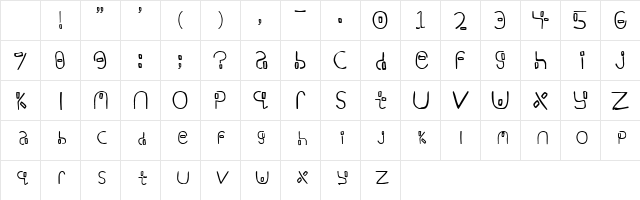
Yikatu Regular Free Font
Yikatu Regular
Design Context for Yikatu
Yikatu is a composed and adaptable typeface that performs quietly and consistently across a wide range of design contexts.